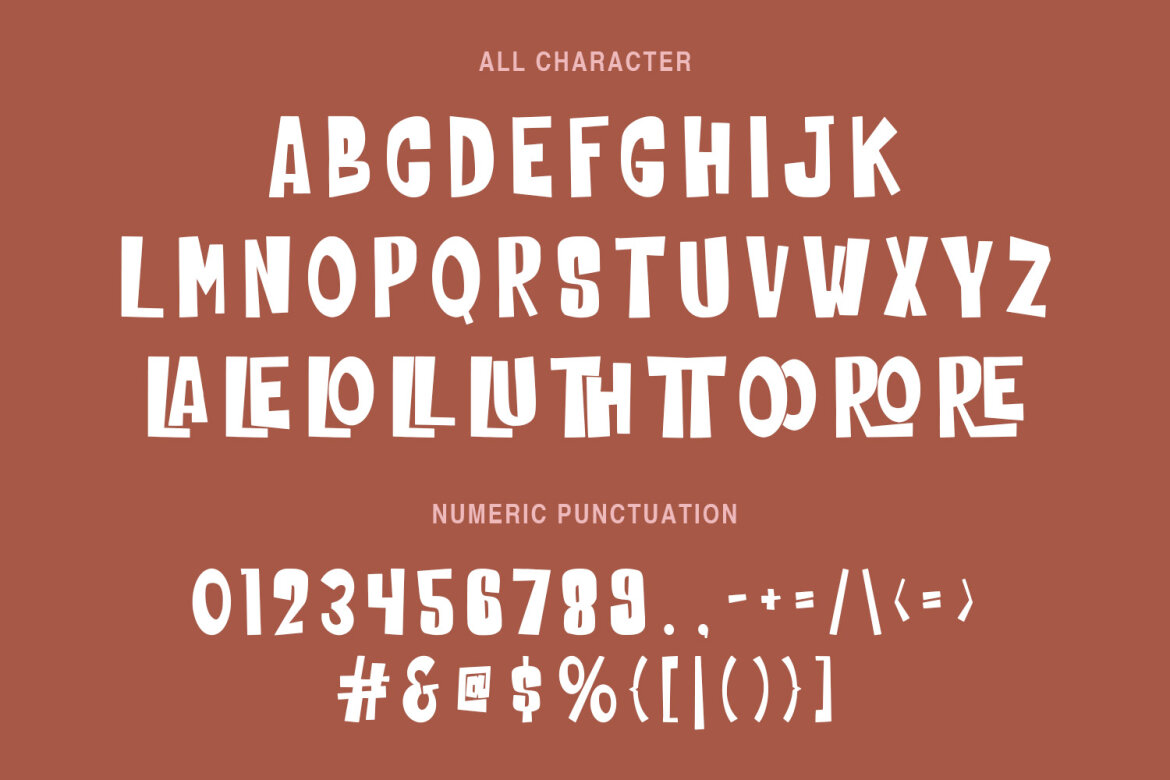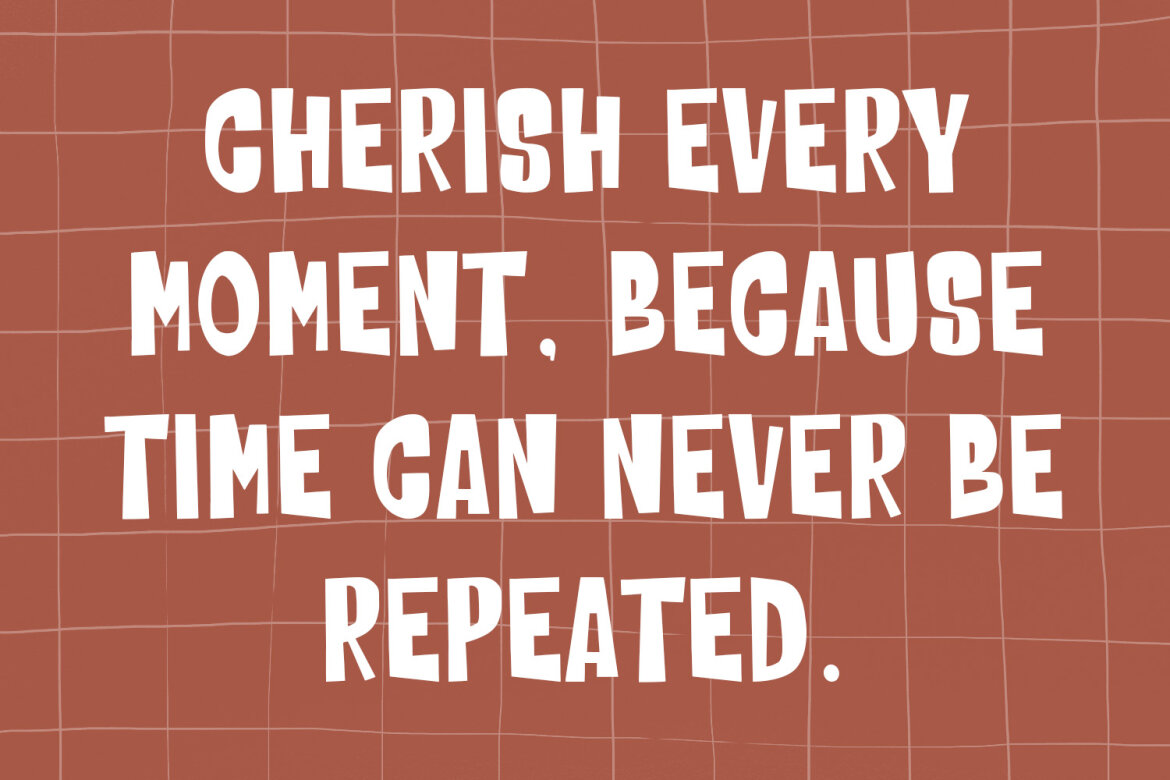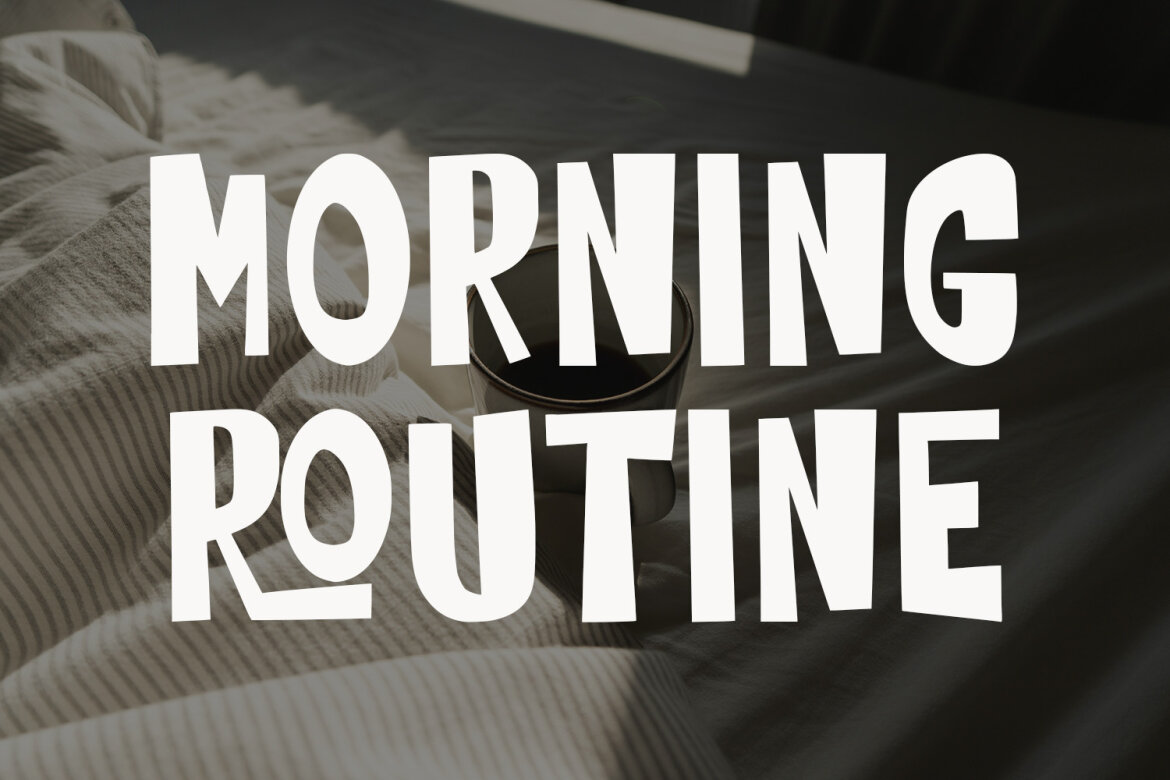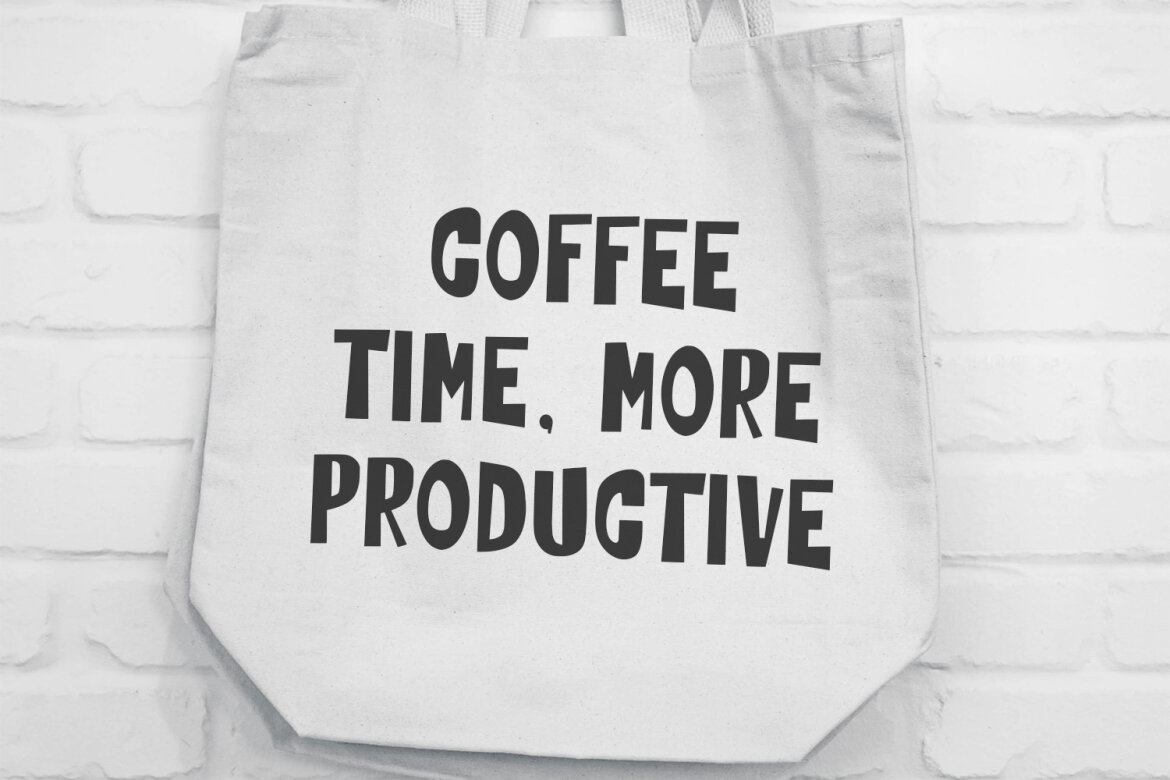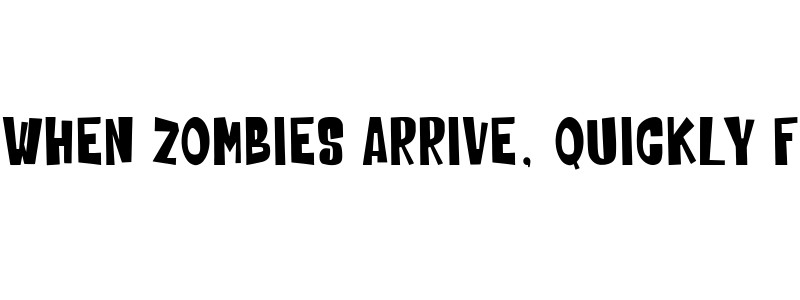
Ketto Kokka Playful FREE Display Font
Ketto Kokka
Ketto Kokka is a cheerful, playful, and characterful display font. With its unique, bold, and slightly eccentric letterforms, this font brings a fun and friendly feel to any design. It's suitable for branding, website, social media, and even children's creative projects. This font is designed for designers who want to stand out and play with typography. Whether for large titles, inspirational quotes, or catchy headlines, Ketto Kokka will immediately attract attention and bring your design to life. With a modern style with a touch of retro, this font is perfect for lifestyle projects, creative projects, or businesses that want to appear fresh and approachable.
• Numbers and punctuation
• Multilingual Support
• Ligatures